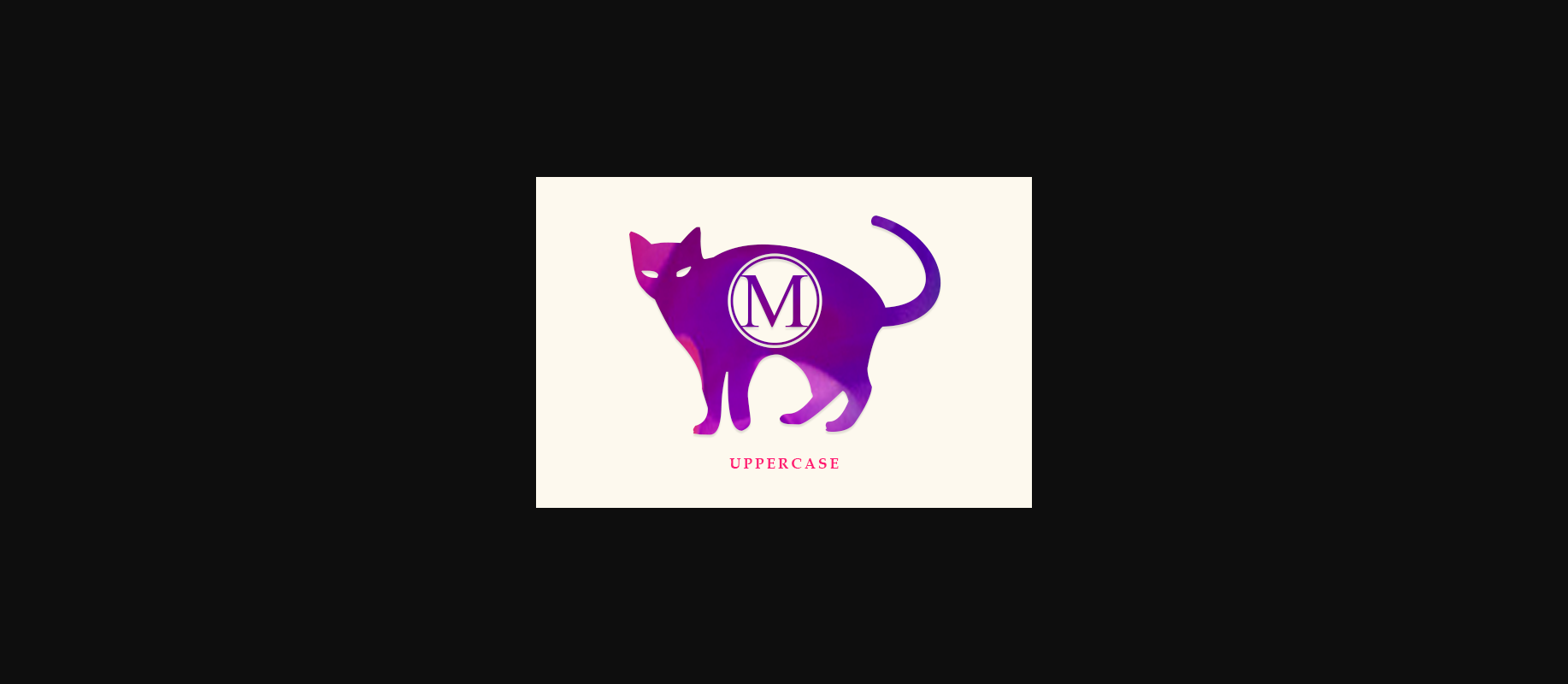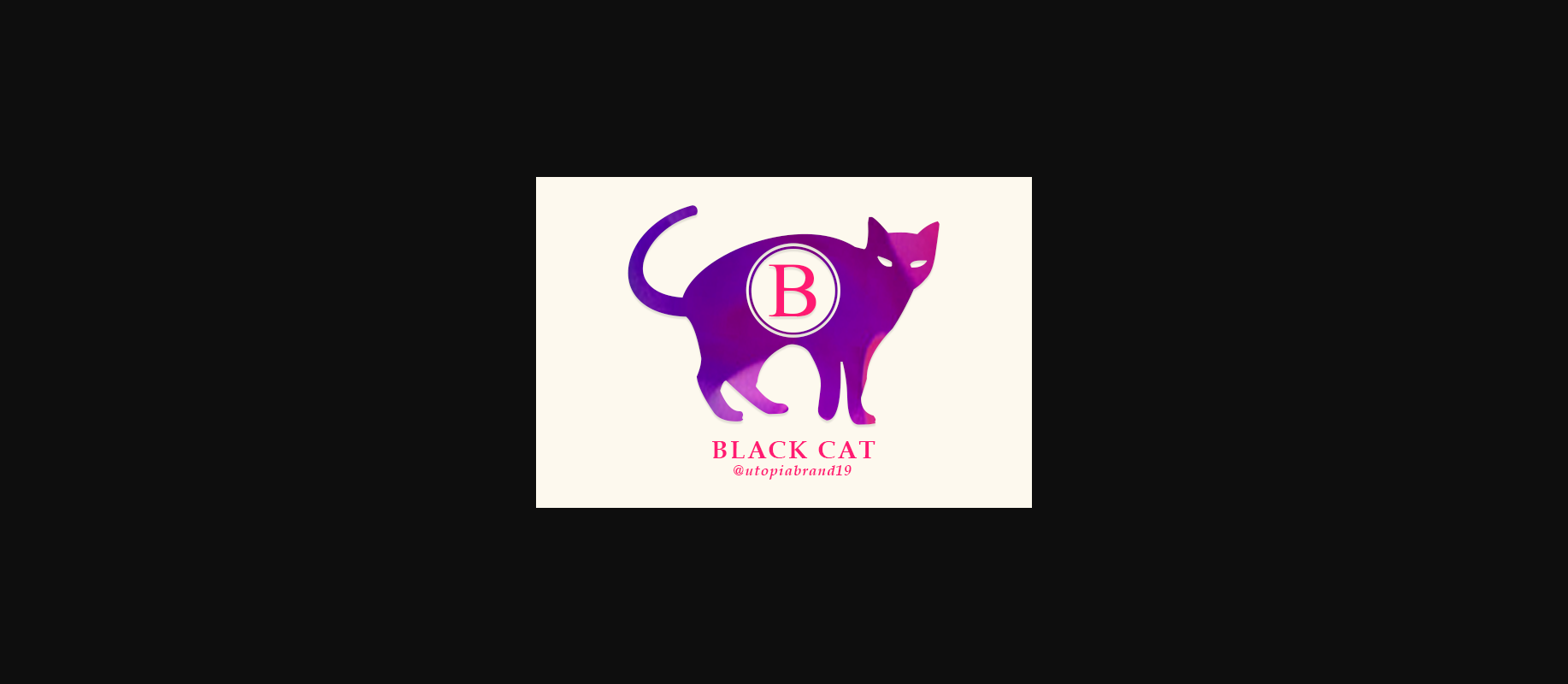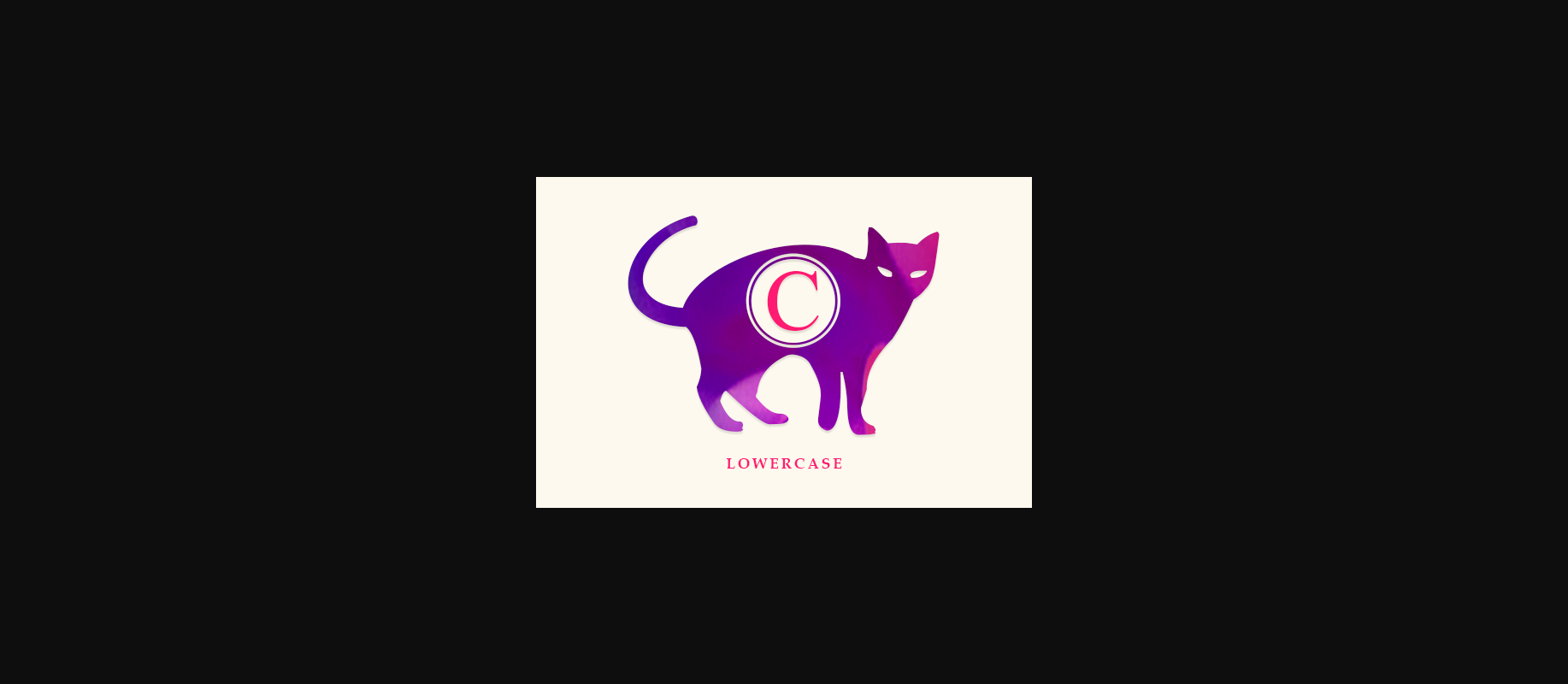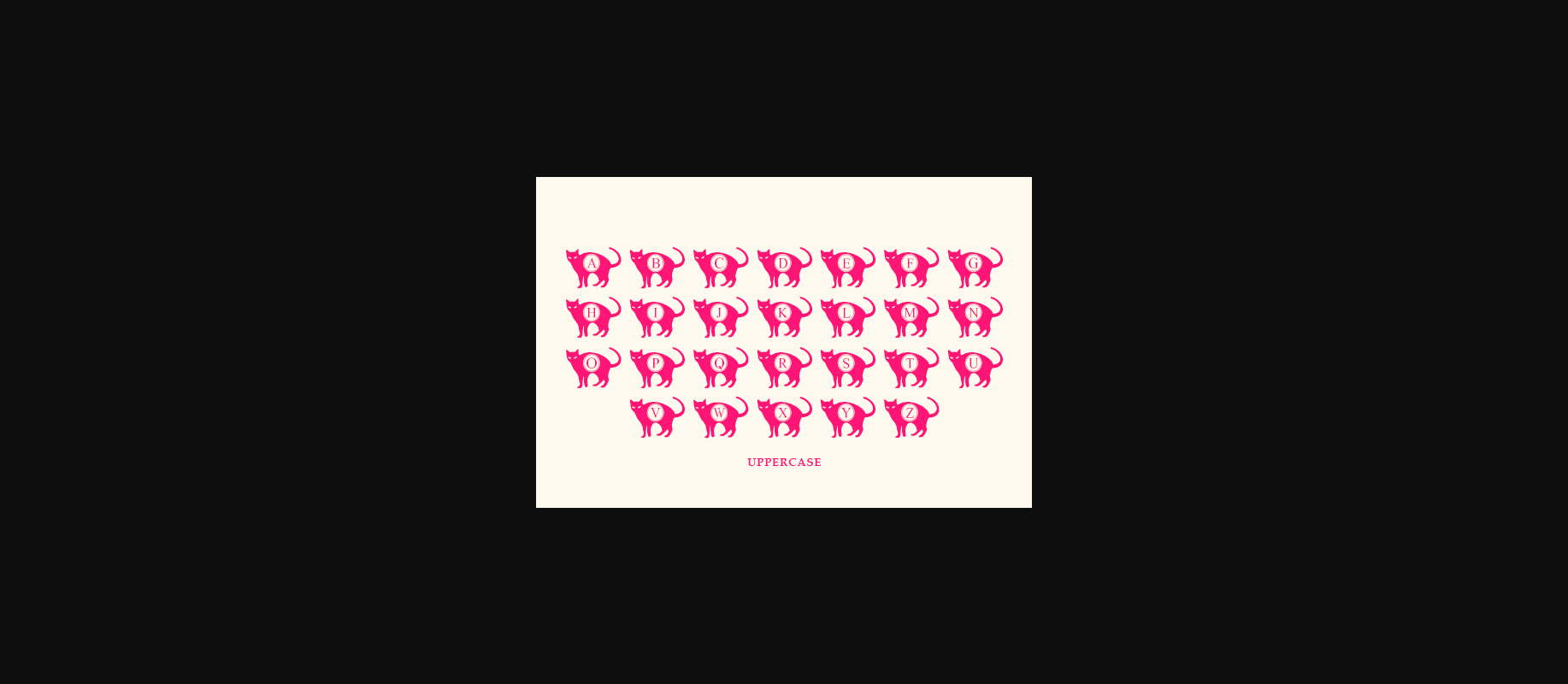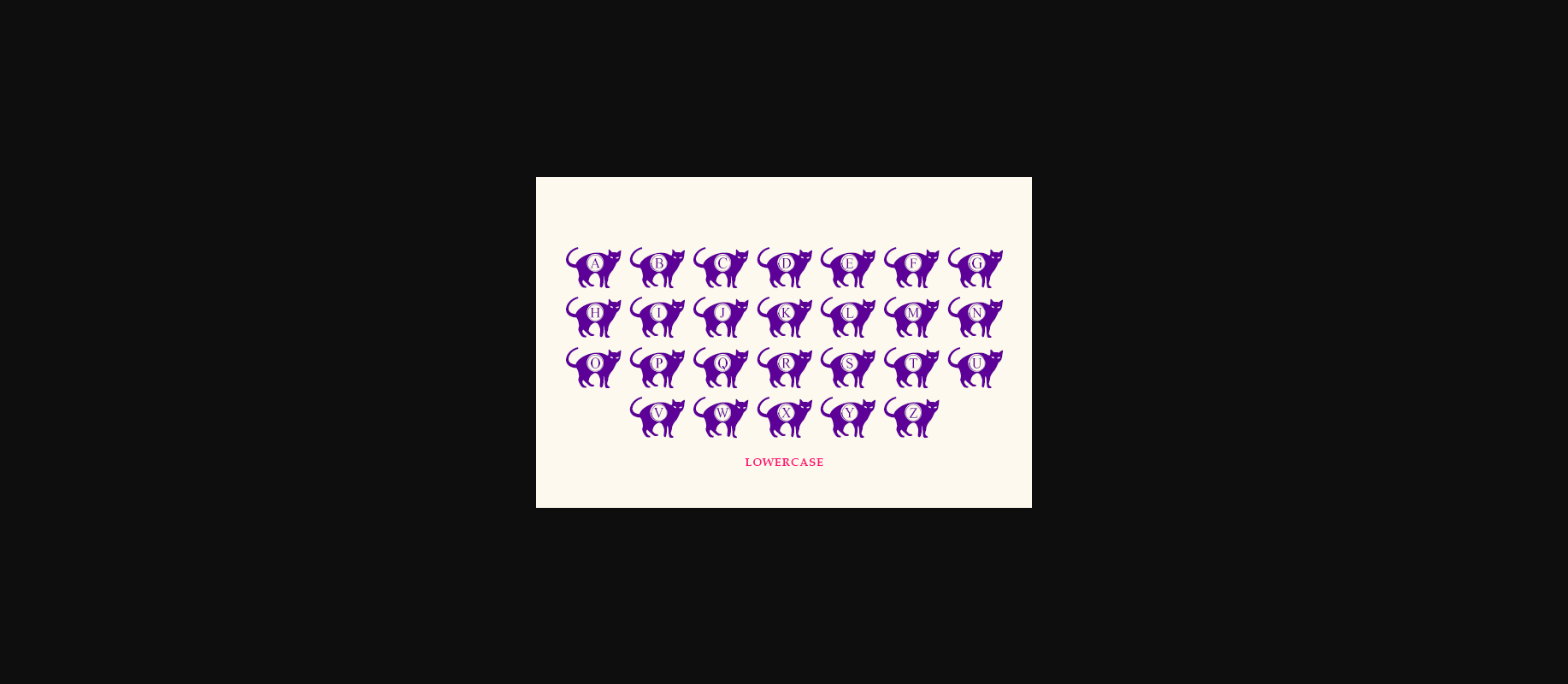
Black Cat Font
About Black Cat Font
Black Cat is an elegant decorative font, featuring lovely cat themed ornaments. Fall in love with its authentic feel and use it to create gorgeous, beautiful stationary art, eye-catching social media posts, and cute greeting cards.